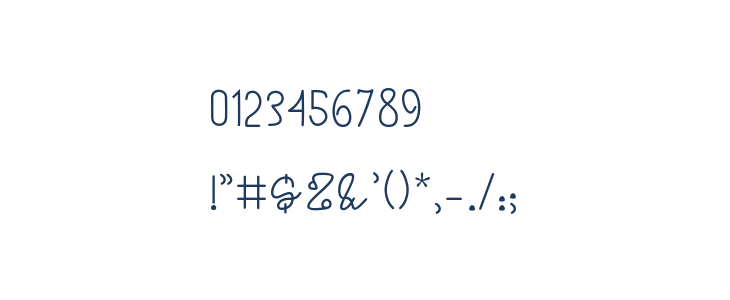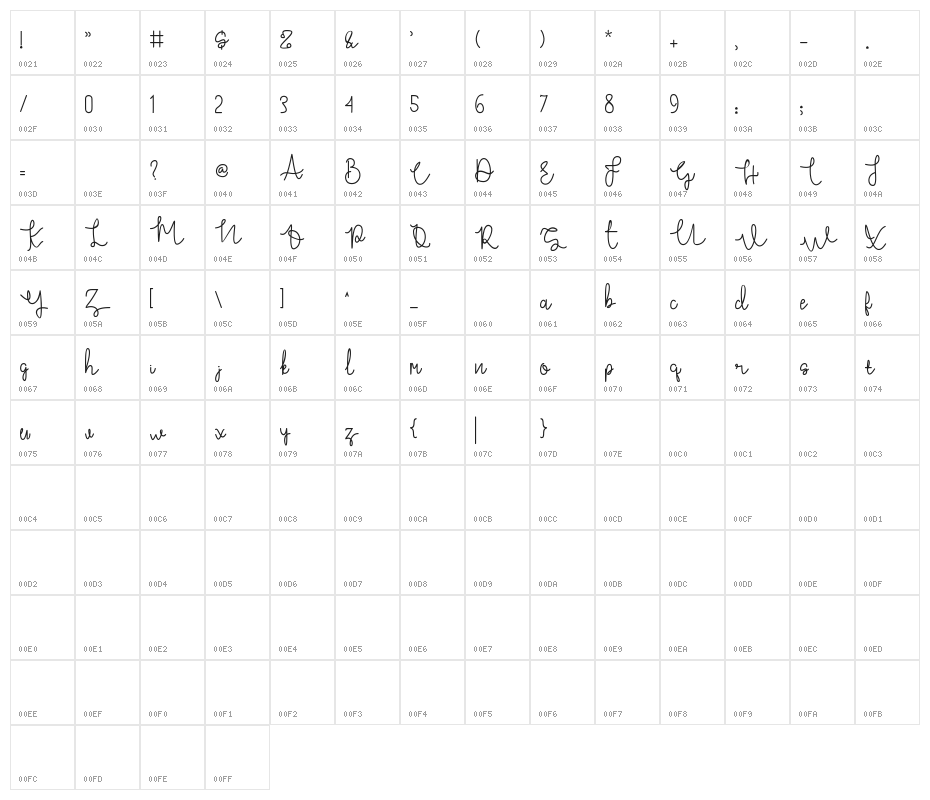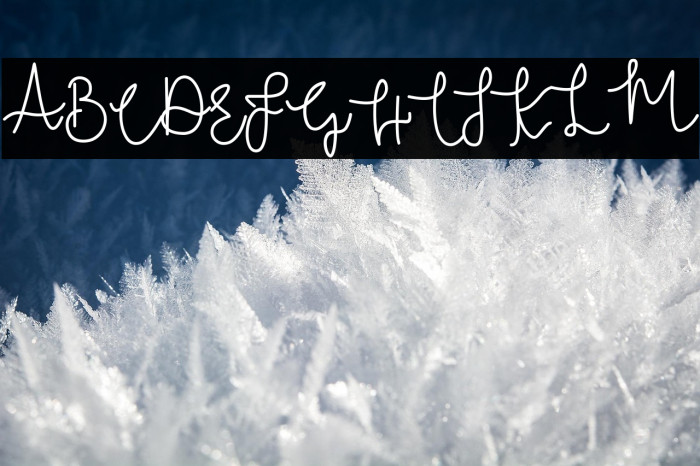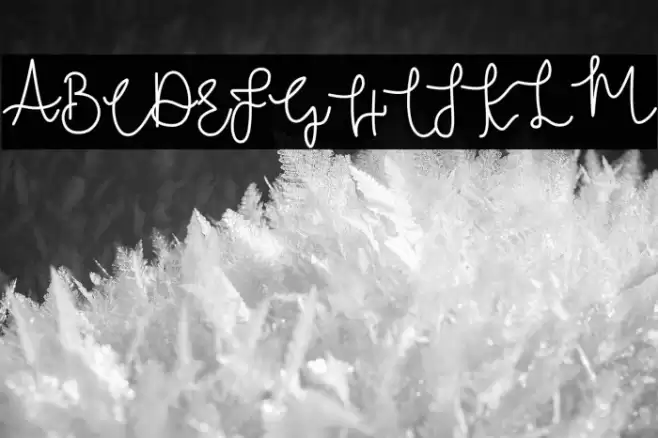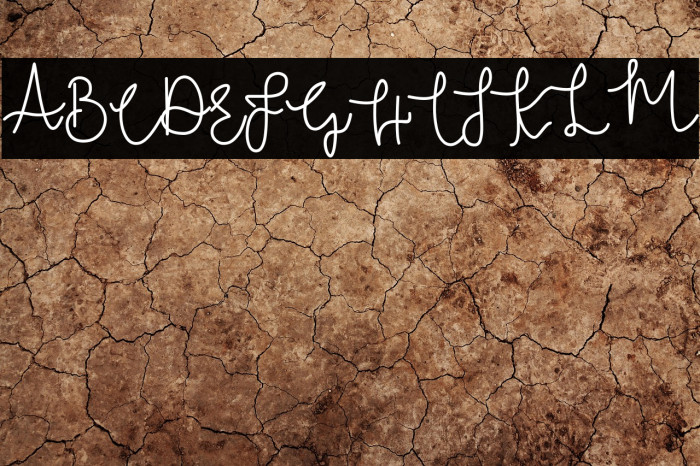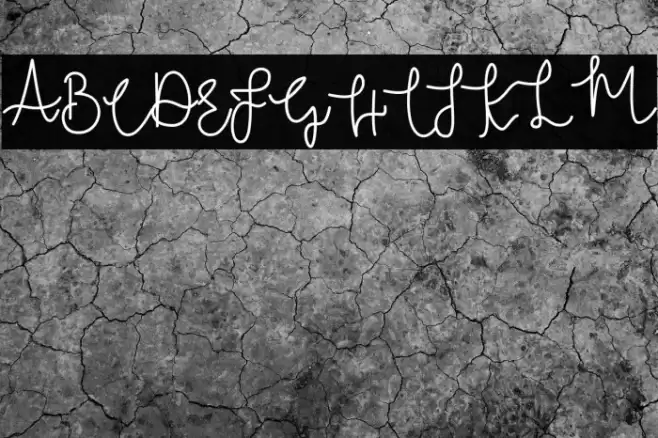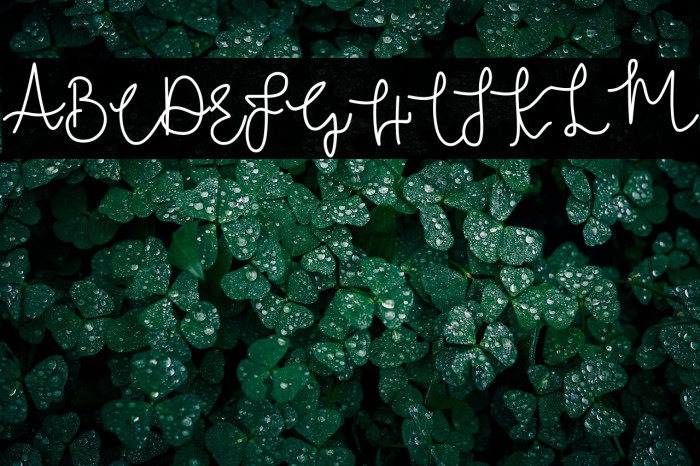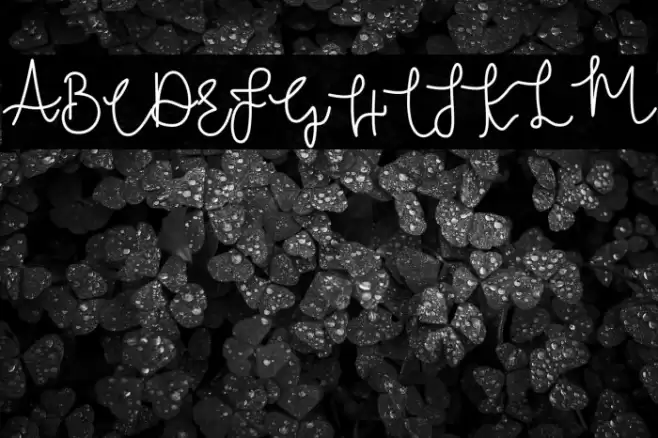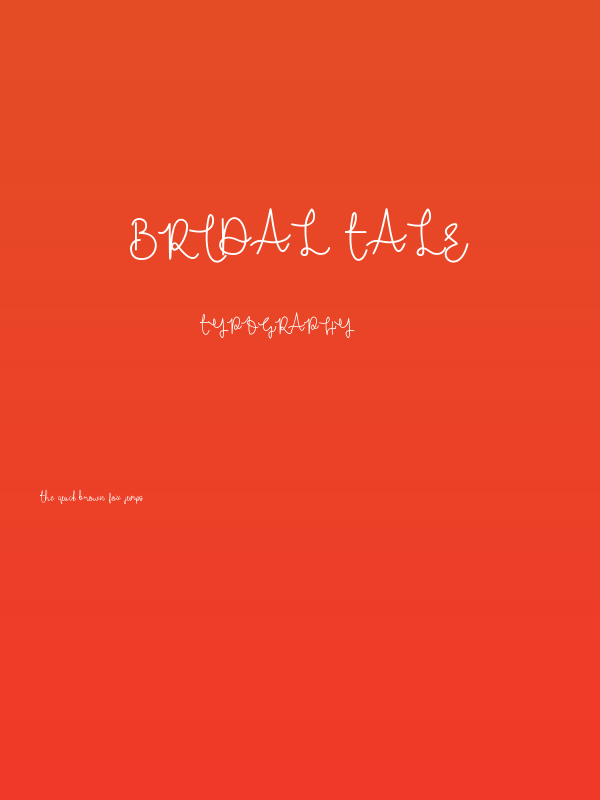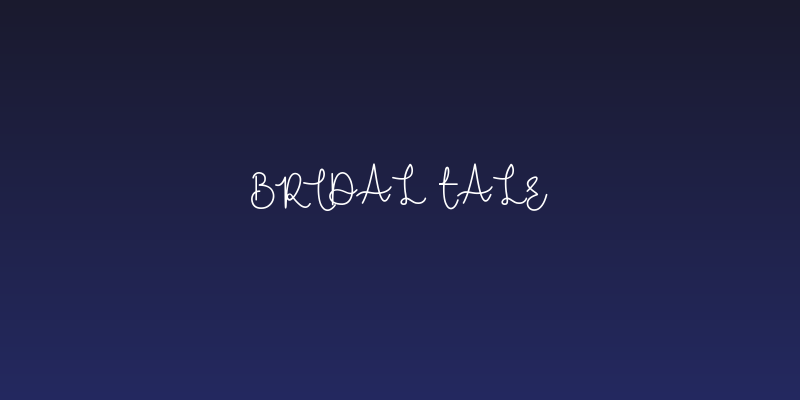
Bridal Tale Font
Bridal Tale Description
This font exudes a whimsical and elegant charm, characterized by its flowing, cursive style. The uppercase letters are distinct with playful loops and curves, while the lowercase letters maintain a consistent, smooth flow that enhances readability. The numerals are crafted with a similar flair, ensuring they complement the overall aesthetic. Special characters are thoughtfully designed to match the font's graceful style, making it versatile for various uses. The font's delicate strokes and balanced spacing give it a light, airy feel, perfect for adding a touch of sophistication to any project.
| Use Case | Headlines, Invitations, Branding |
| Proposed Projects | Ideal for wedding invitations, greeting cards, personal branding, and elegant packaging. |